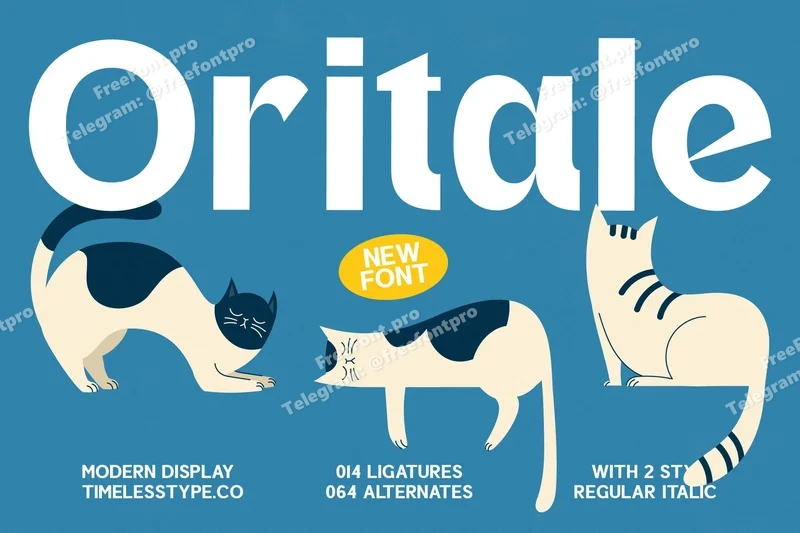
Oritale – Modern Display Font
Oritale is a modern display serif font with bold shapes and clean curves, designed to bring a fresh and contemporary look to your projects. Featuring creative ligatures and versatile alternates, this font is perfect for logos, posters, packaging, branding, social media, and editorial layouts. With its playful yet refined style, Oritale is a versatile typeface that works beautifully across both print and digital designs, adding uniqueness and modern elegance to every project.